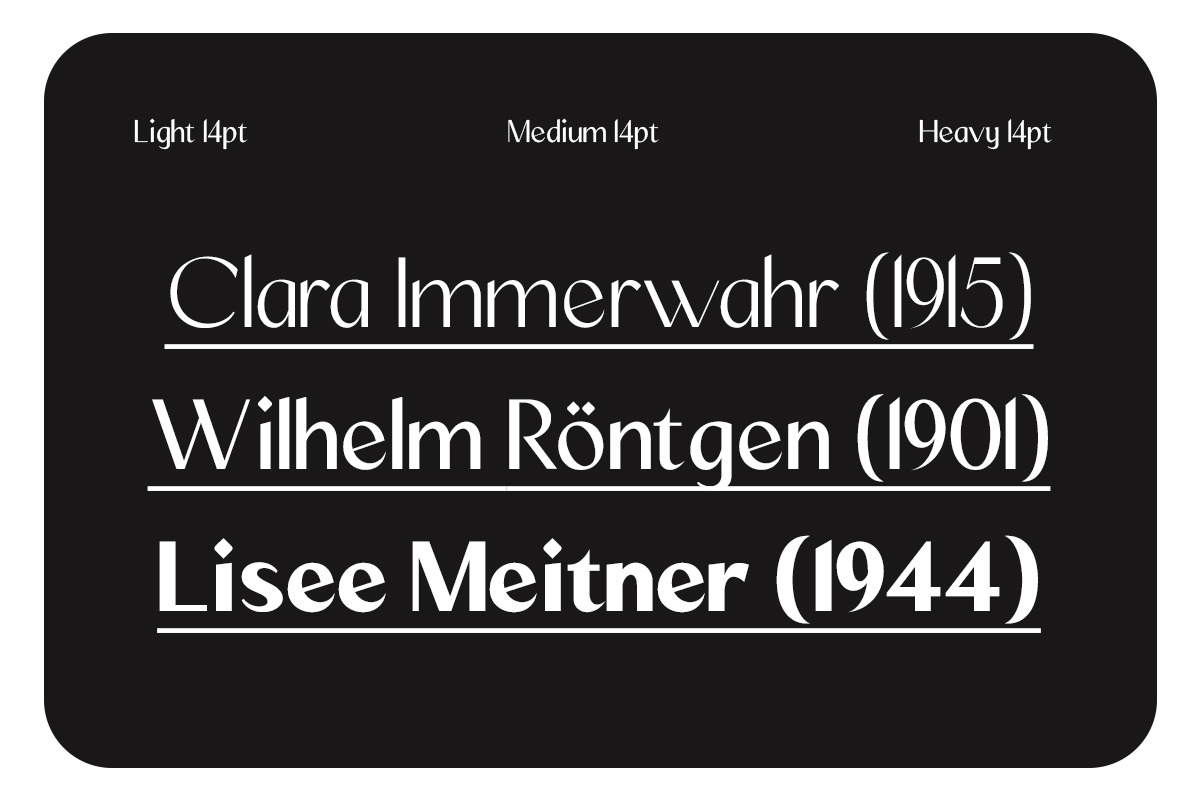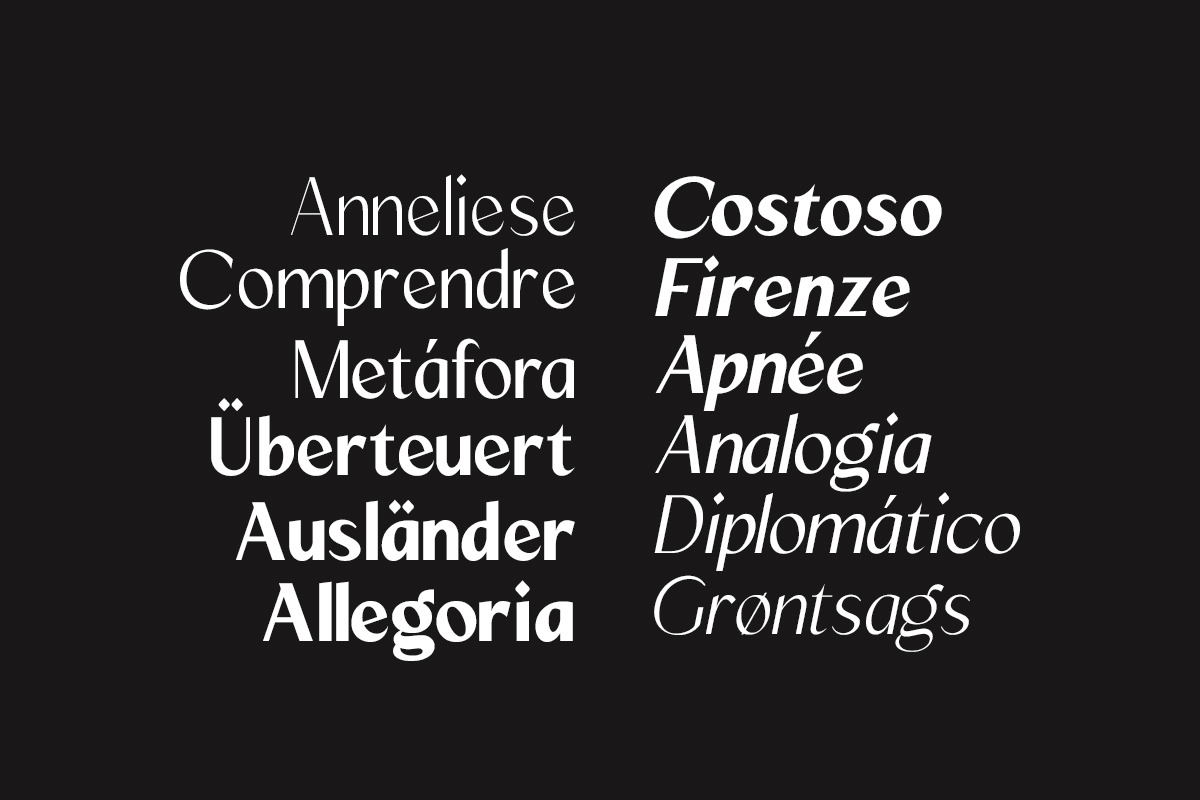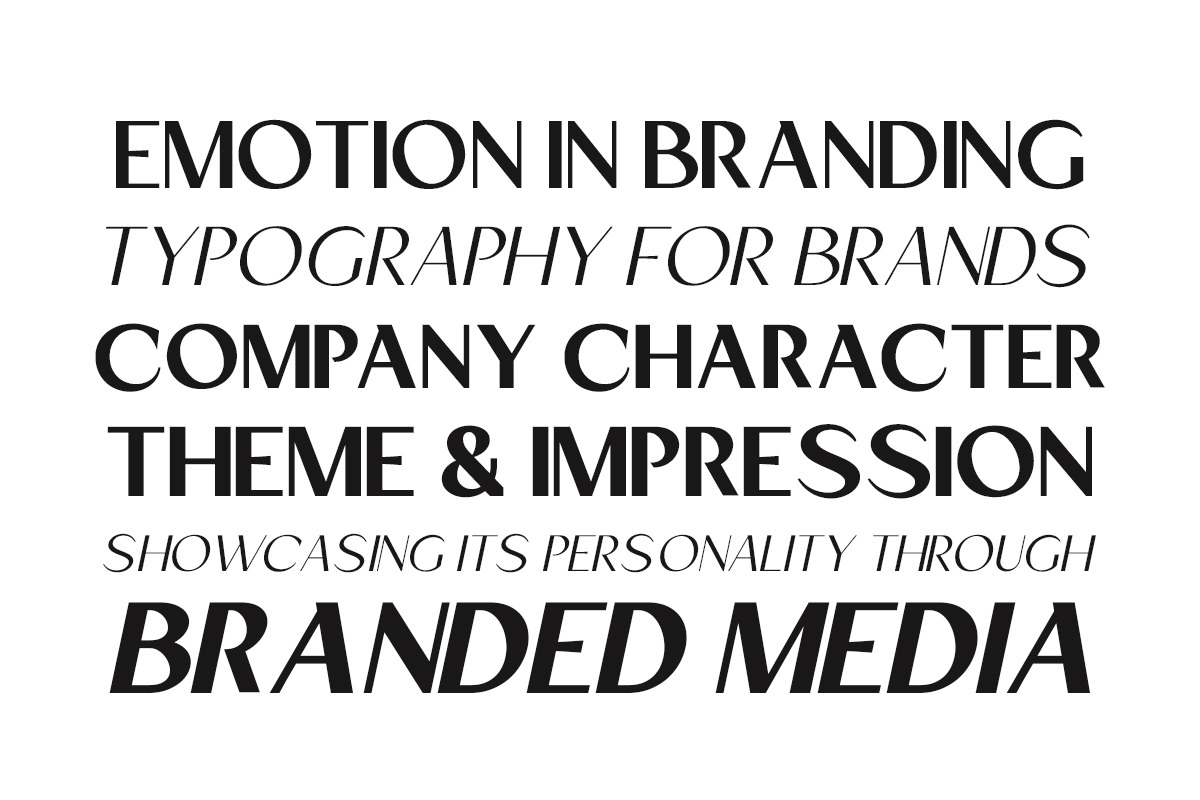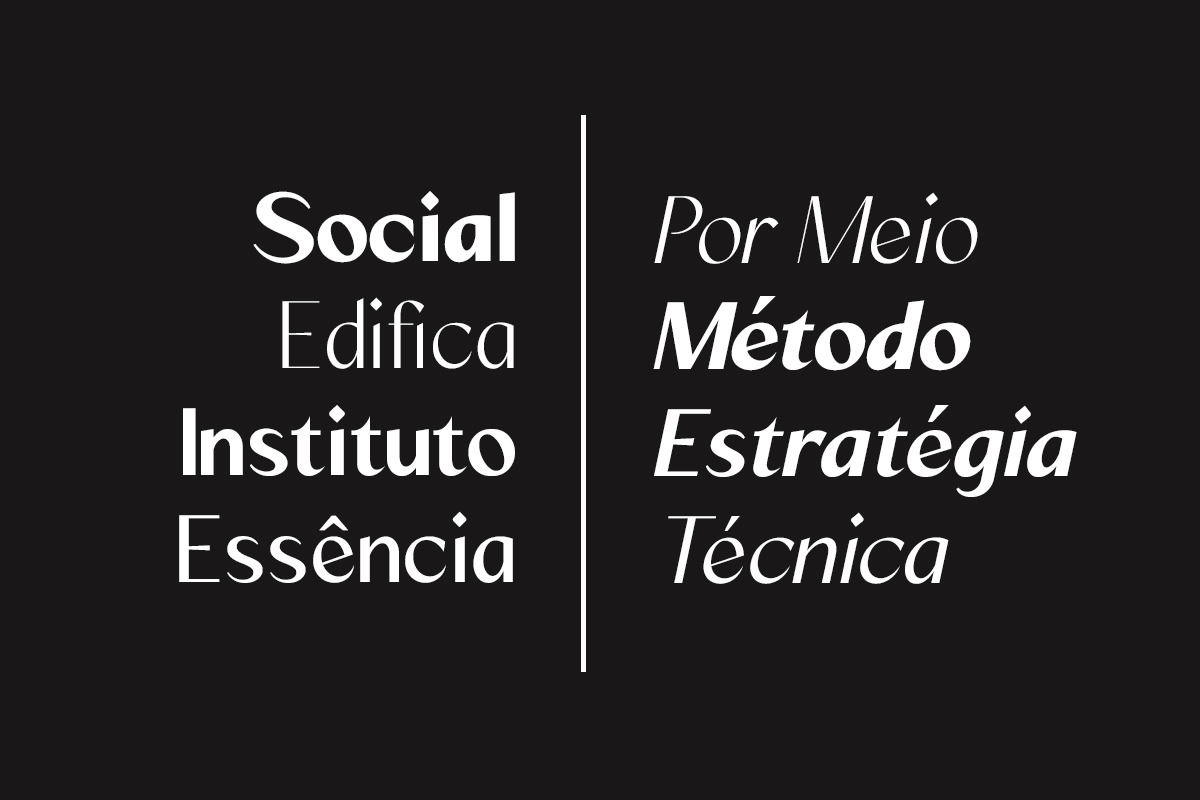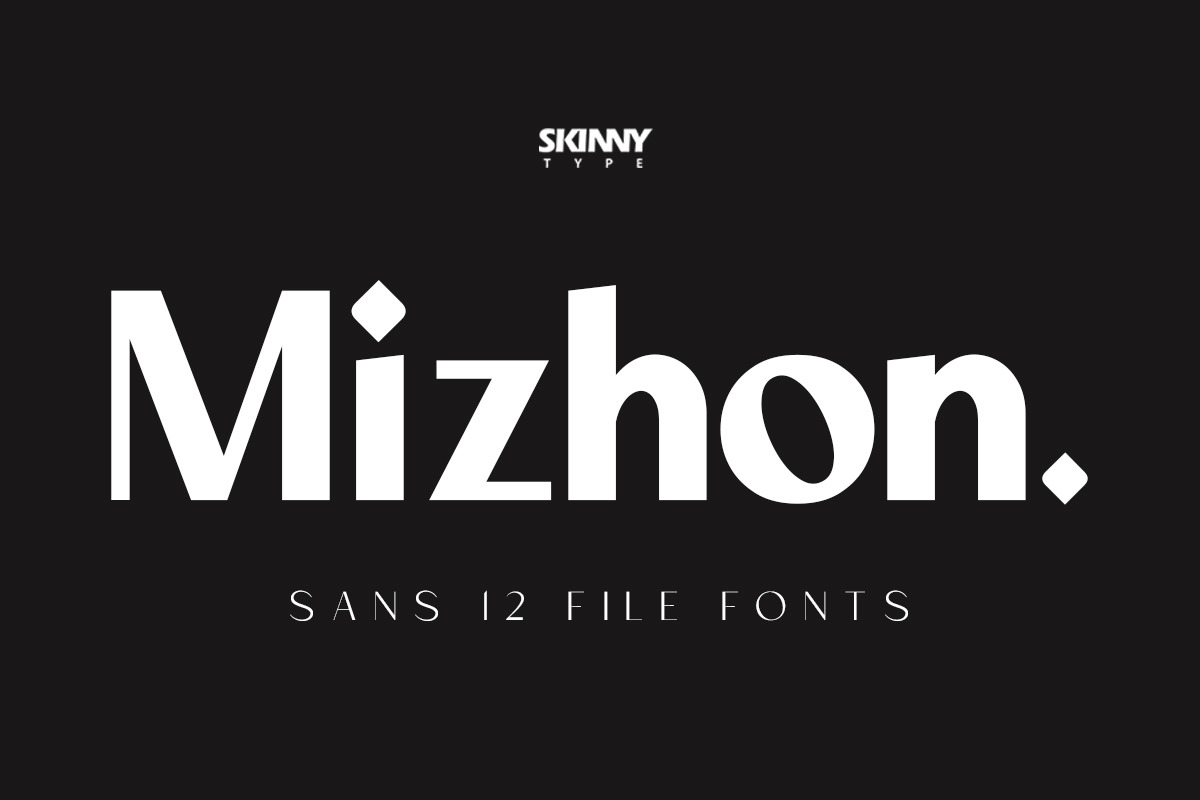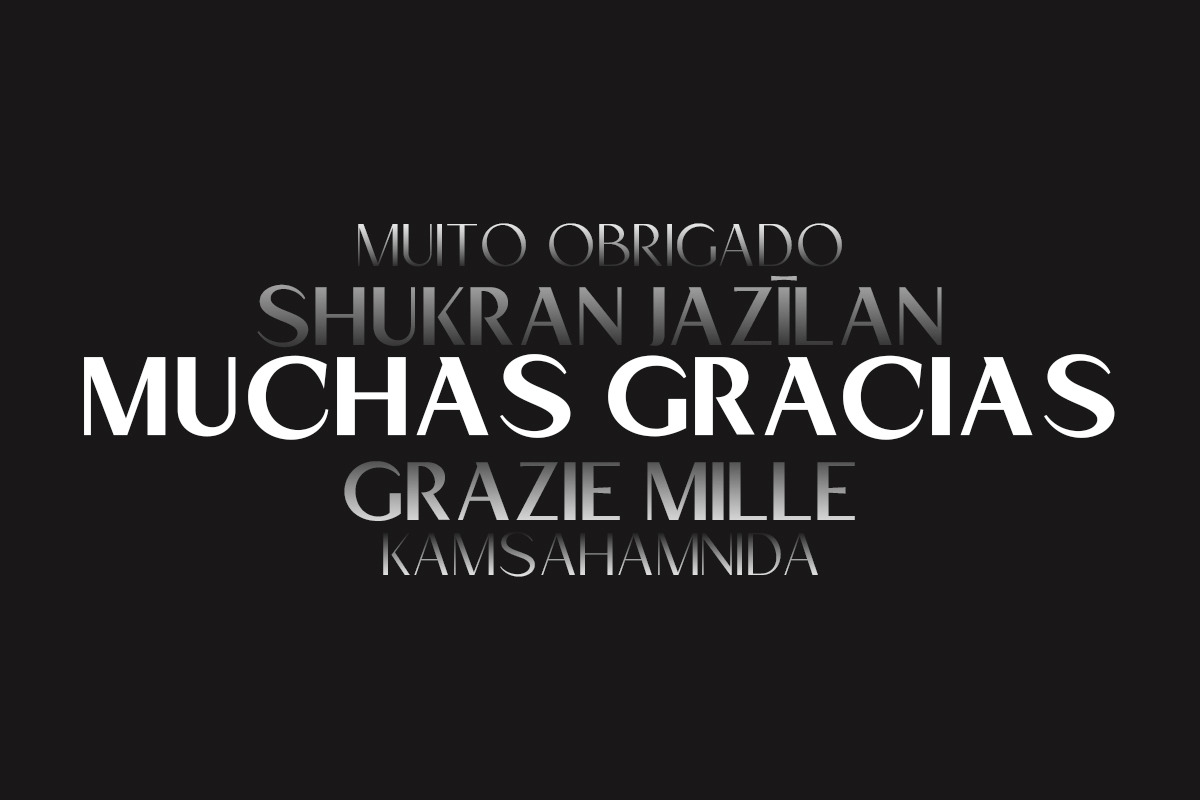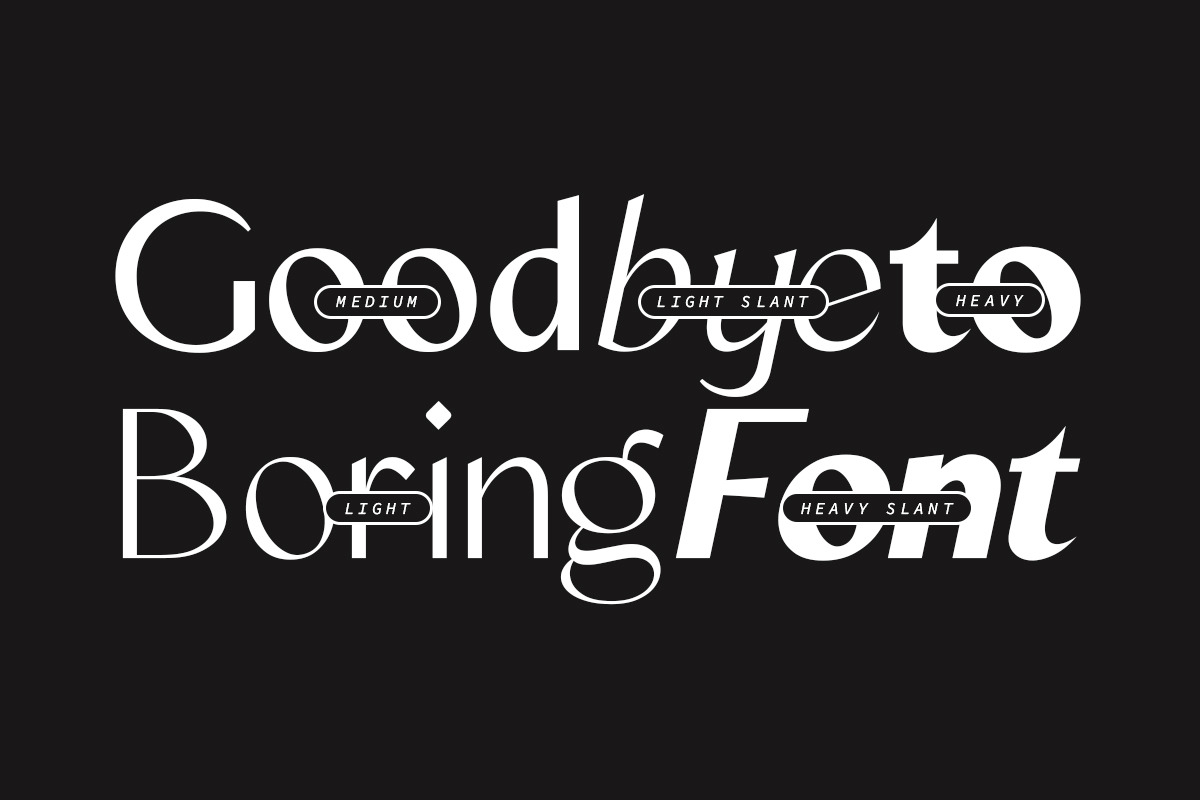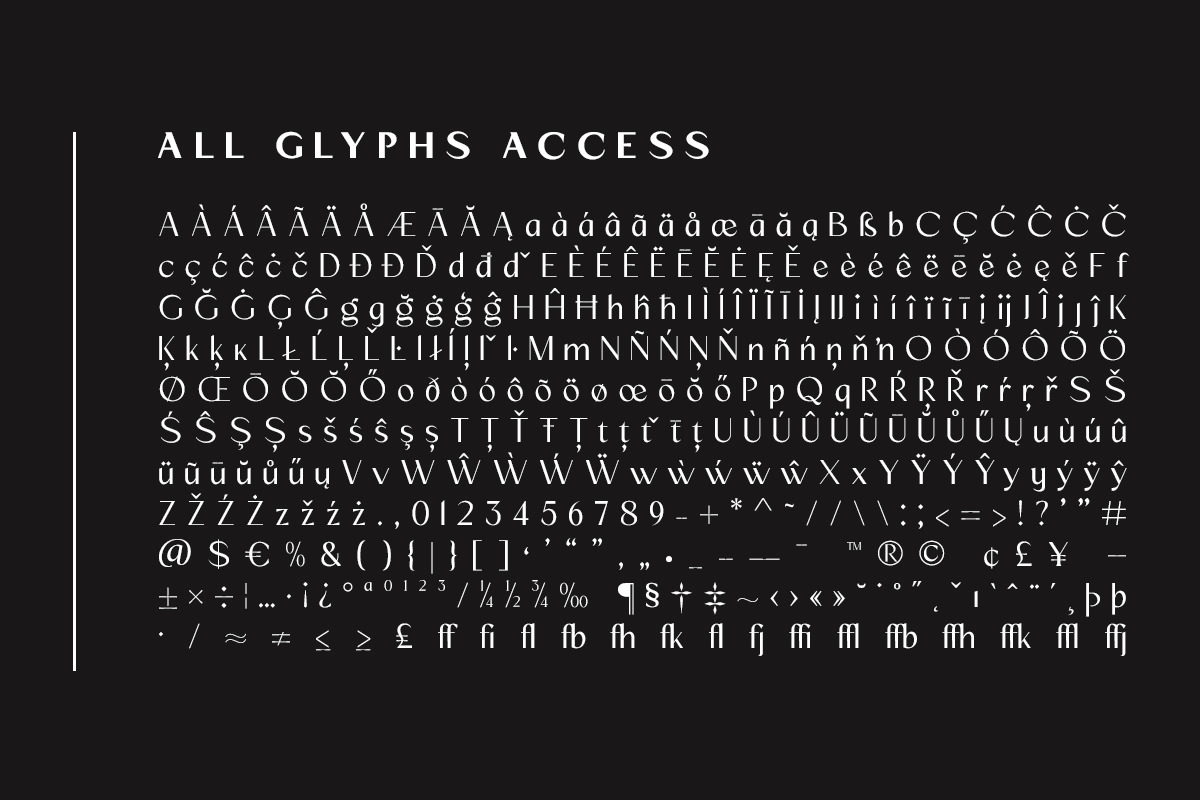
Mizhon Sans| 12 Fonts
Mizhon Sans presents the purest and most minimal expression of the family. Clean stroke endings and reduced contrast emphasize clarity, strength, and modern simplicity. Its geometric foundation and smooth curves create a confident yet versatile tone, suitable for digital interfaces, corporate identities, and strong headline compositions. This style works effortlessly when a sleek, forward-thinking aesthetic is required.